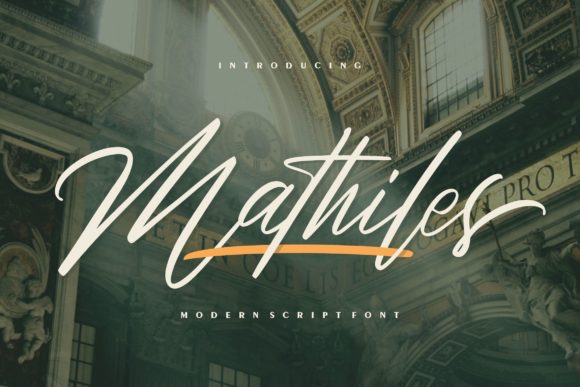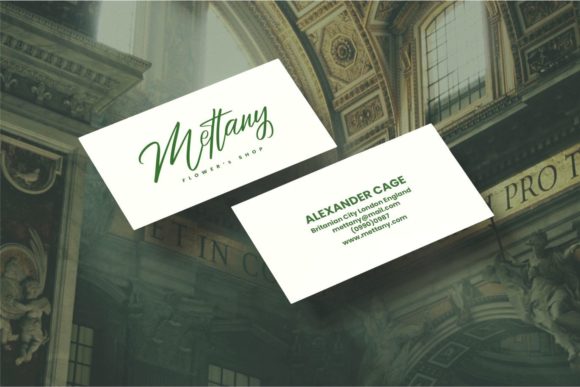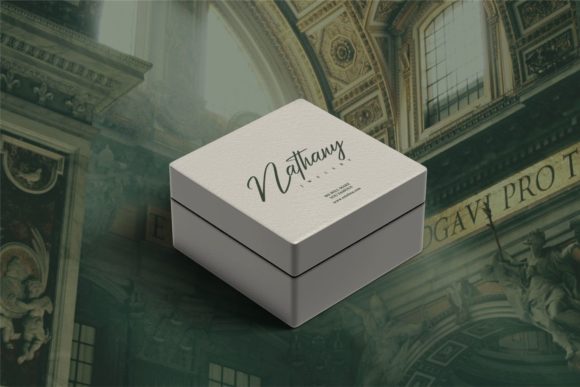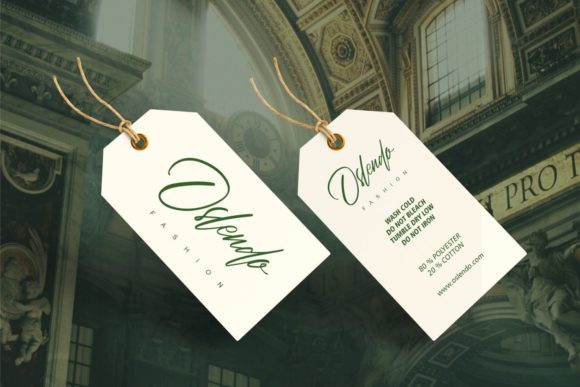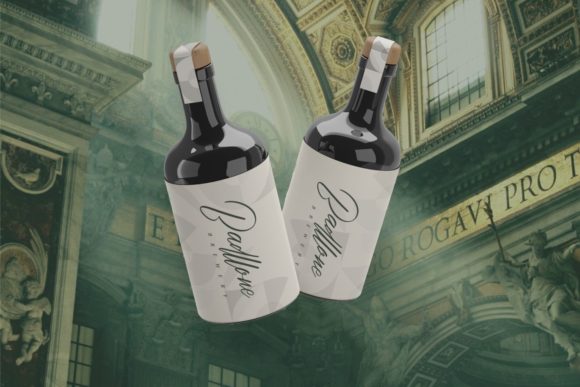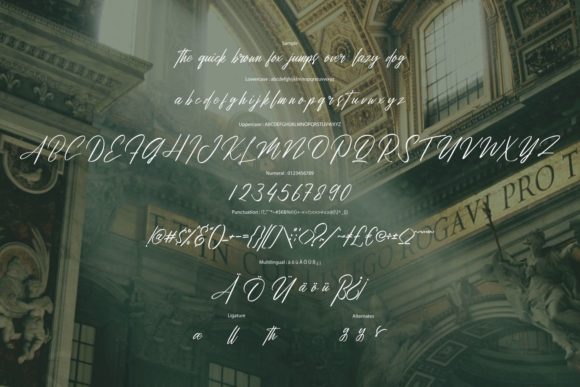
Mathiles Font
About Mathiles Font
Mathiles is a stylish and delicate script font. It has a clean, thin and smooth vibe and it will be a hit for any design that you want to add it to.